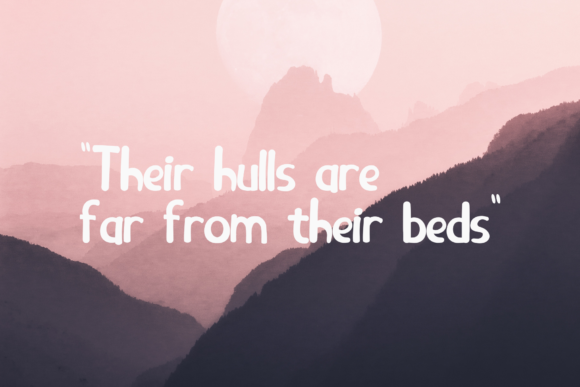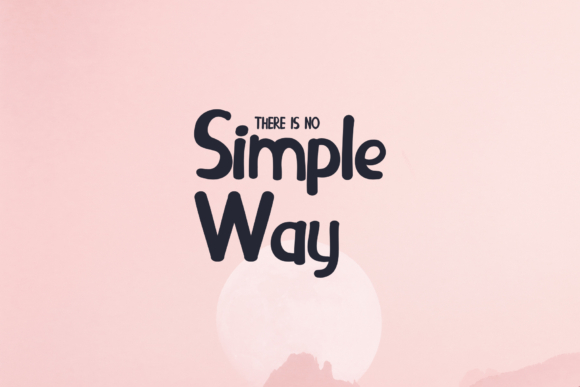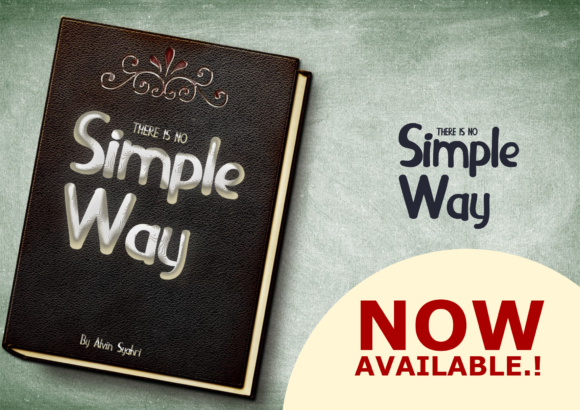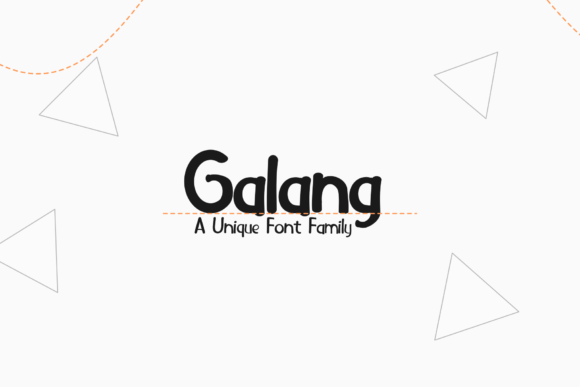
Get Ready to Fall in Love with Galang Font
Who else has ever stared at a blank canvas, searching for the perfect font to bring their design to life? We’ve all been there. It’s the moment when the creative juices start flowing, and you know exactly what you want – but can’t quite put your finger on it. That’s where the Galang Font comes in – a simple, yet fun sans serif font that’s guaranteed to spark inspiration.
Galang Font is designed to add a touch of casual coolness to any design. Whether you’re working on a personal project or a client’s branding, this font is sure to bring a smile to your face. Its versatility makes it a valuable asset for designers, allowing you to create unique and engaging designs with ease.
Galang Font Key Features
- Font Family: Galang is a sans-serif font family designed for digital use.
- Unique Characteristics: Galang features a clean, modern design with a unique geometric feel, making it suitable for digital interfaces, branding, and advertising materials.
Galang Font Review
As a designer, I was excited to dive into the Galang Font and see what it has to offer. Here’s my honest review.
- The Galang Font has a unique and modern aesthetic that’s perfect for digital products and interfaces.
- The font is highly legible, even at small sizes, making it ideal for mobile apps and websites.
- The font family includes a range of weights and styles, giving designers plenty of flexibility when it comes to typography.
- The Galang Font may not be the best choice for print materials, as it can appear pixelated or rough at larger sizes.
- The font’s unique aesthetic may not appeal to all designers or brands, so it’s essential to test it with your specific use case.
The Galang Font is a solid choice for digital designers looking for a modern and legible font. While it may have some limitations, its unique aesthetic and range of styles make it a great option for those who want to add some visual interest to their designs. Overall, I’d give the Galang Font 4 out of 5 stars.
Some popular use cases for the Galang font include:
– Creating modern and minimalist logos
– Designing trendy social media graphics
– Adding a touch of elegance to wedding invitations
– Using it as a display font for headlines and titles
– Experimenting with different font sizes and colors to create unique visual effects.
Alternatives to Galang Font for Designers
Lato Font is a modern sans-serif font designed by Łukasz Dziedzic. It is perfect for use in digital products, websites, and applications where a clean and elegant look is required.
Comparison to Galang Font: Lato Font has a similar feel to Galang Font but with a more refined and polished appearance. It is ideal for designers who want a font that is both modern and timeless.
Montserrat Font is a sans-serif font designed by Julieta Ulanovsky. It is inspired by the urban typography of the Montserrat neighborhood in Buenos Aires and is perfect for use in digital products, websites, and applications where a bold and edgy look is required.
Comparison to Galang Font: Montserrat Font has a similar urban feel to Galang Font but with a more aggressive and edgy appearance. It is ideal for designers who want a font that is both bold and sophisticated.
Open Sans Font is a modern sans-serif font designed by Steve Matteson. It is perfect for use in digital products, websites, and applications where a clean and readable look is required.
Comparison to Galang Font: Open Sans Font has a similar clean and modern feel to Galang Font but with a more neutral and versatile appearance. It is ideal for designers who want a font that is both readable and aesthetically pleasing.